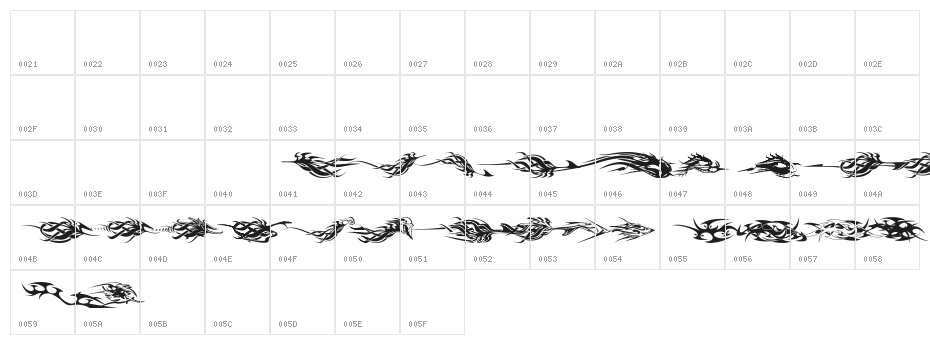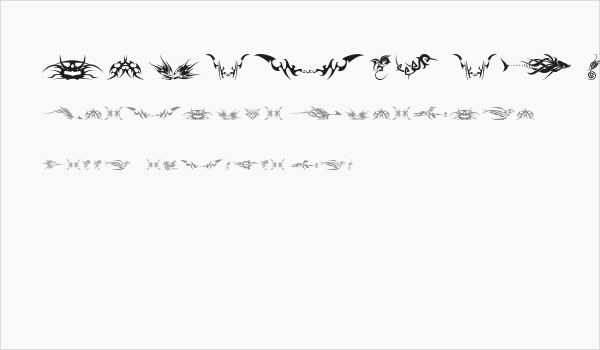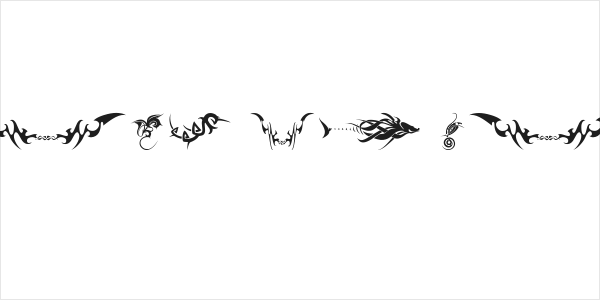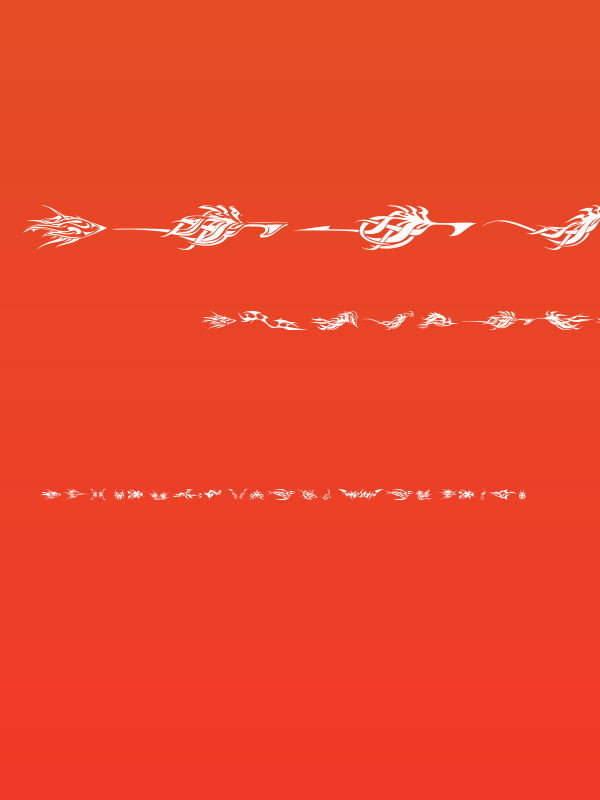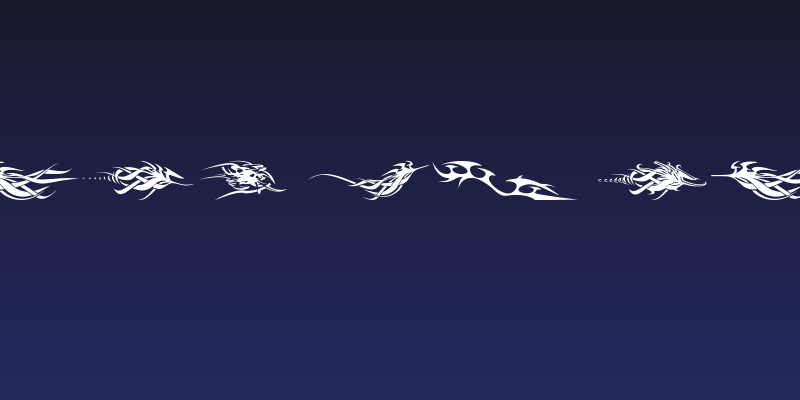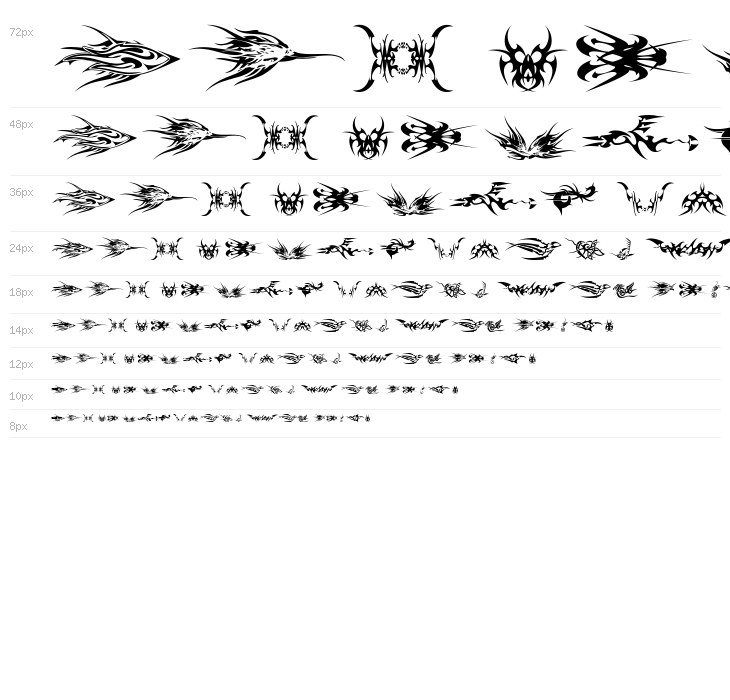
tribalz by marioz Font
tribalz by marioz Description
This design features intricate tribal patterns that are highly decorative and artistic. The elements are characterized by sharp, flowing lines and curves that create a sense of movement and energy. The style is bold and striking, with a high level of detail that makes each character unique. The patterns are reminiscent of traditional tribal tattoos, with a modern twist that adds a contemporary flair. The design is monochromatic, emphasizing the contrast between the intricate black lines and the white background. This style is ideal for projects that require a bold and artistic touch, such as tattoos, graphic design elements, or decorative borders.
| Use Case | Logos, Decorative elements, Tattoos |
| Proposed Projects | Ideal for tattoo designs, graphic design elements, decorative borders, and artistic projects requiring a bold statement. |